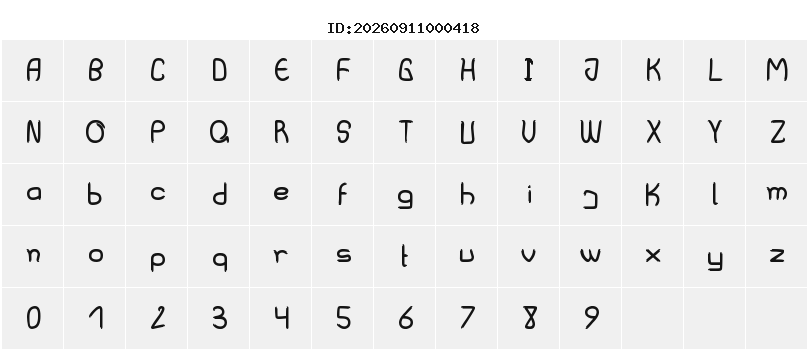
• Font Name: Villa Sanjurjo
• Designer: Abdo Jalil Bouhaj
About Villa Sanjurjo.ttf
Villa Sanjurjo.ttf is a modern, elegant sans-serif font designed for ultimate readability and visual harmony. Perfect for branding, headlines, web design, and print materials.